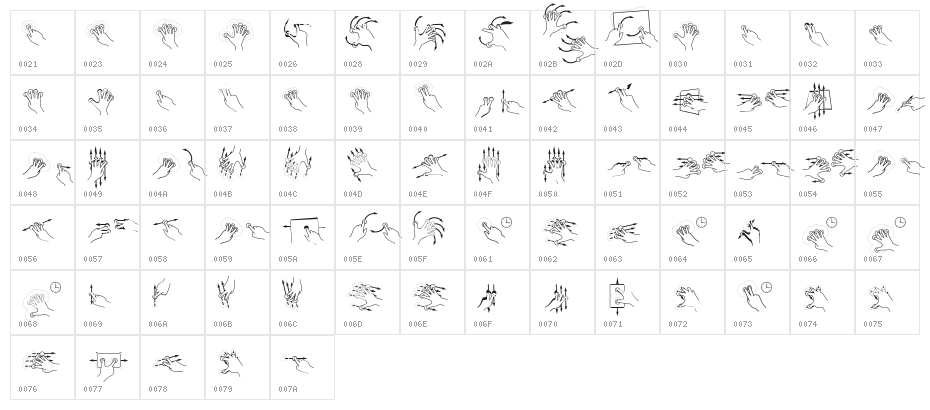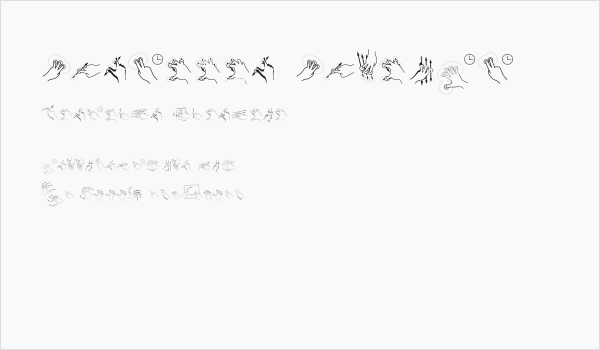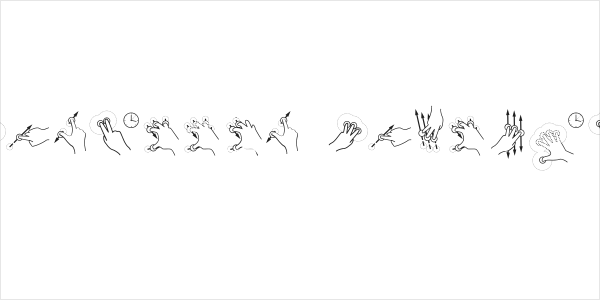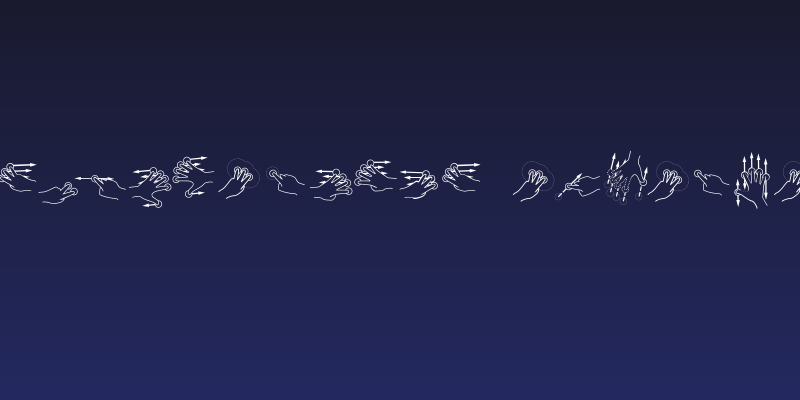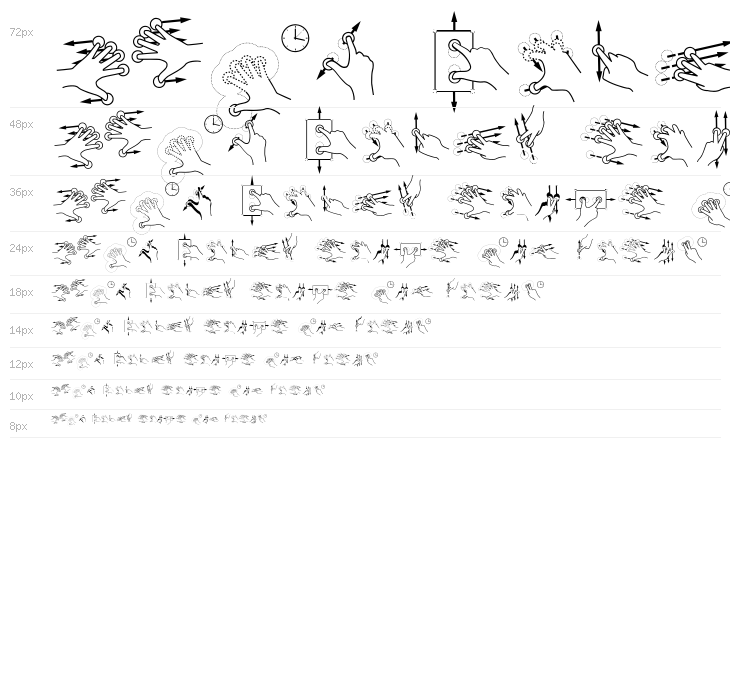
Gesture Glyphs Font
Gesture Glyphs Description
A collection of hand-drawn gesture icons depicting various hand movements and interactions, such as swipes, pinches, taps, and rotations, often used for illustrating touchscreen or gesture-based controls. The glyphs are composed of thin, clean lines with minimal shading, focusing on clarity and simplicity.
| Overall Style | Modern, Minimalist, Instructional |
| Use Case | Icons, Infographics, Instructional graphics |
| Proposed Projects | User interface guides, mobile app tutorials, gesture-based instruction manuals, educational materials, infographics. |